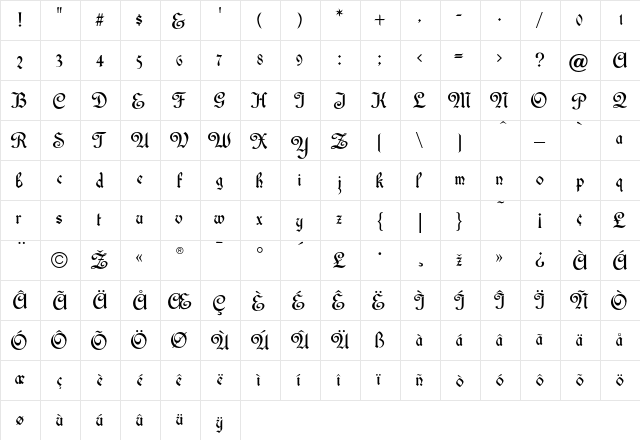
LibraryText Regular
Design Context for LibraryText Typeface
LibraryText is a composed and adaptable typeface that performs quietly and consistently across a wide range of design contexts.